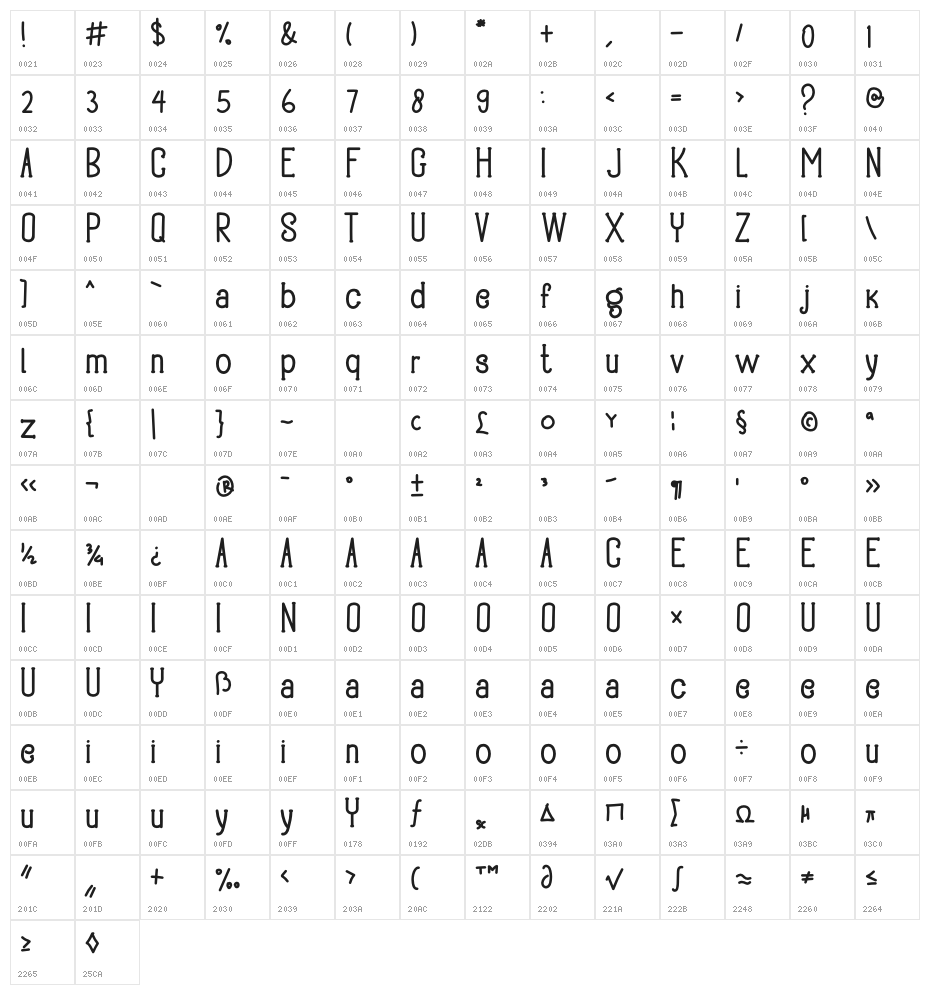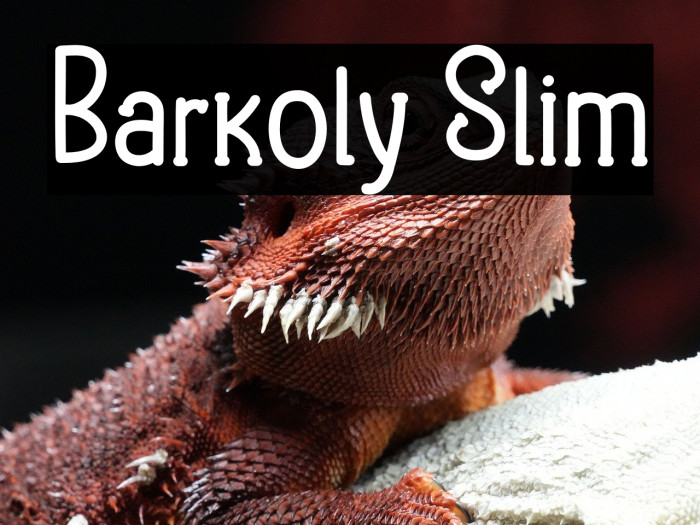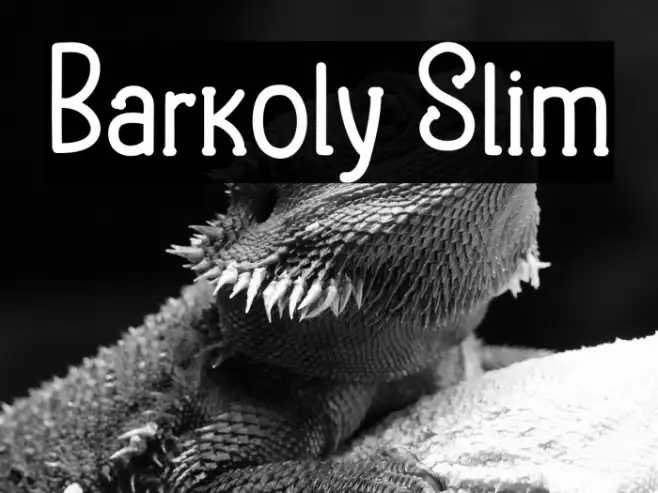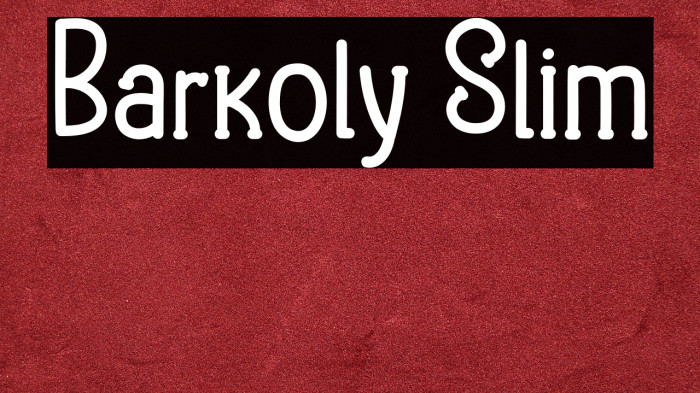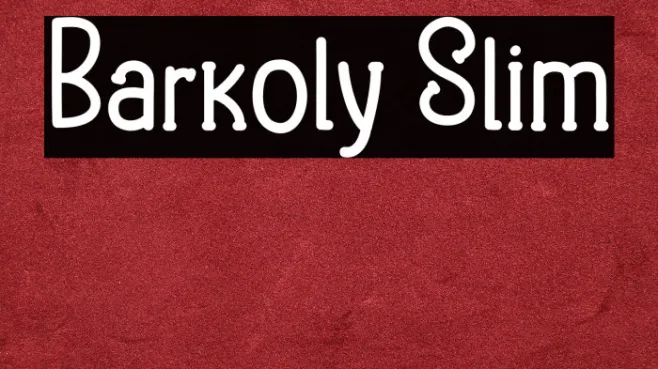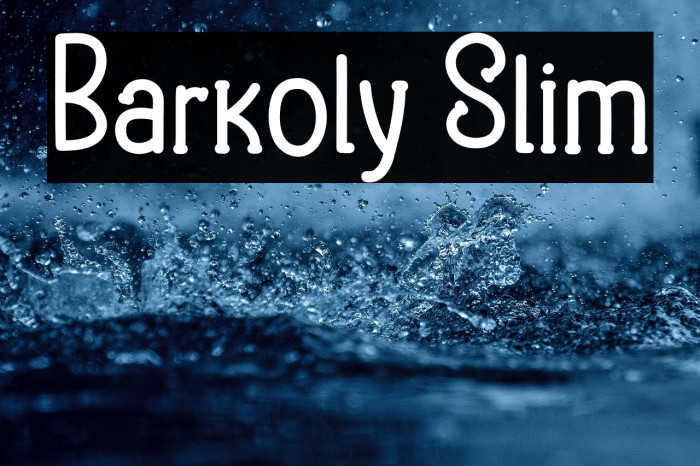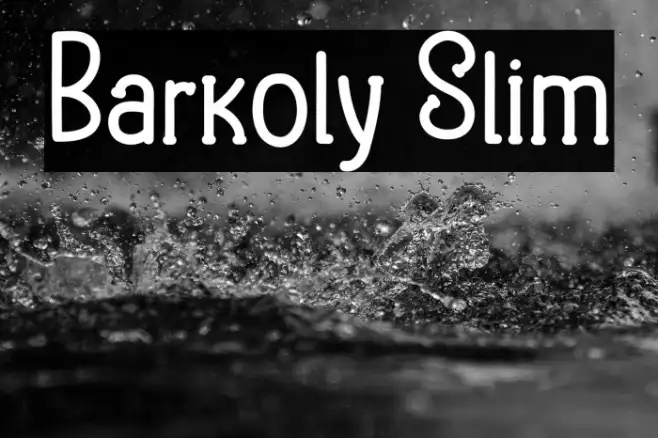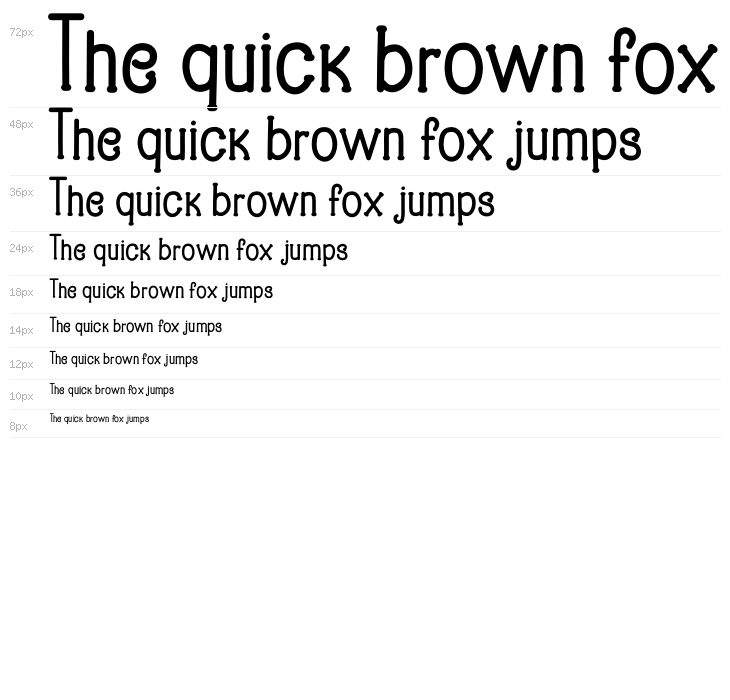
Barkoly Slim Font
Barkoly Slim Description
This font features a playful and rounded style with a distinctively modern and friendly appearance. The characters are tall and slender, with a consistent stroke width that gives it a clean and uniform look. The rounded edges and smooth curves add a touch of warmth and approachability, making it ideal for projects that require a casual and inviting tone. The uppercase and lowercase letters maintain a harmonious balance, while the numerals and special characters are designed to complement the overall aesthetic. The font's simplicity and readability make it versatile for various design applications.
| Proposed Projects | Ideal for children's books, casual branding, playful posters, and friendly web design. |